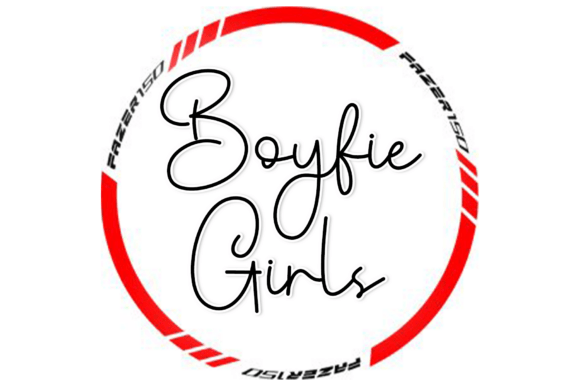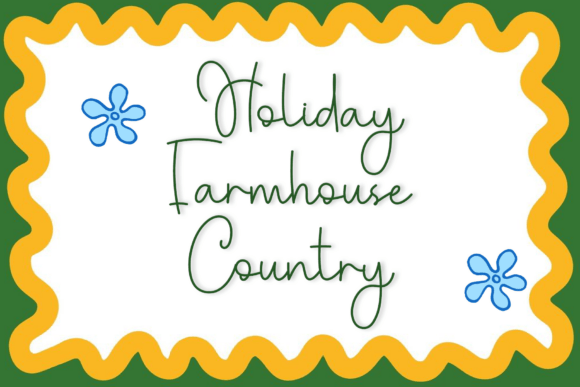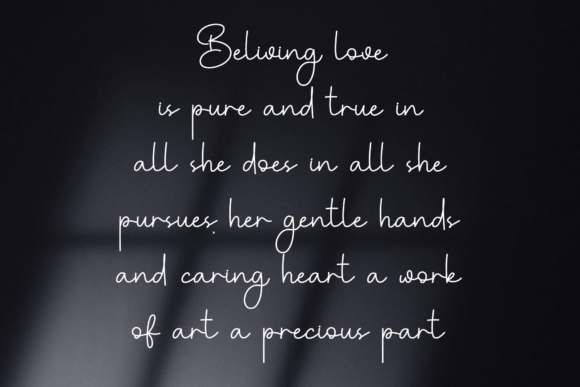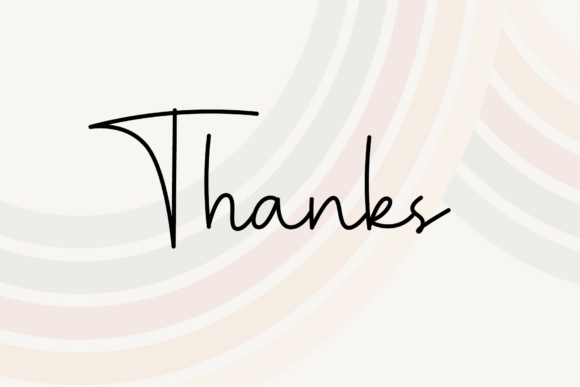
Introduction to Packing Bundling Font Font
Fonts play a crucial role in design, and the Packing Bundling Font font is a typeface that brings both character and versatility to any project. Whether you’re working on a branding project, a website, or a print design, the Packing Bundling Font font offers a unique style that can elevate your work.
Packing Bundling is a sophisticated and rhythmic script font that balances a calligraphic style with a warm, organic aesthetic.
Its defining characteristic is the use of sweeping, looping ascenders that create a sense of customized, artisanal artistry This font is a premier choice for artisanal food branding, boutique product packaging, upscale lifestyle marketing, and creative editorial titles.
Key Features of Packing Bundling Font Font
Why Choose Packing Bundling Font Font?
The Packing Bundling Font font is more than just a typeface – it’s a design tool that helps you communicate your message with style and clarity. Its unique character set and versatile design make it suitable for a wide range of applications, from elegant invitations to bold headlines.
With its carefully crafted letterforms and balanced proportions, the Packing Bundling Font font ensures readability and visual appeal across all mediums.
What makes Packing Bundling Font font special?
The Packing Bundling Font font stands out with its unique design, exceptional readability, and versatility across various design applications.